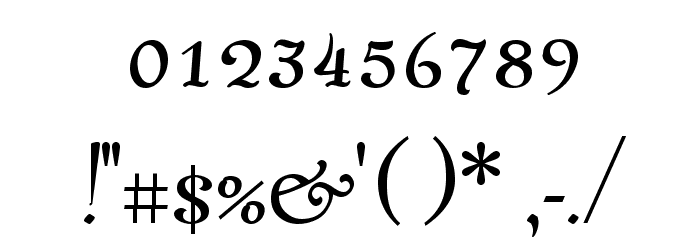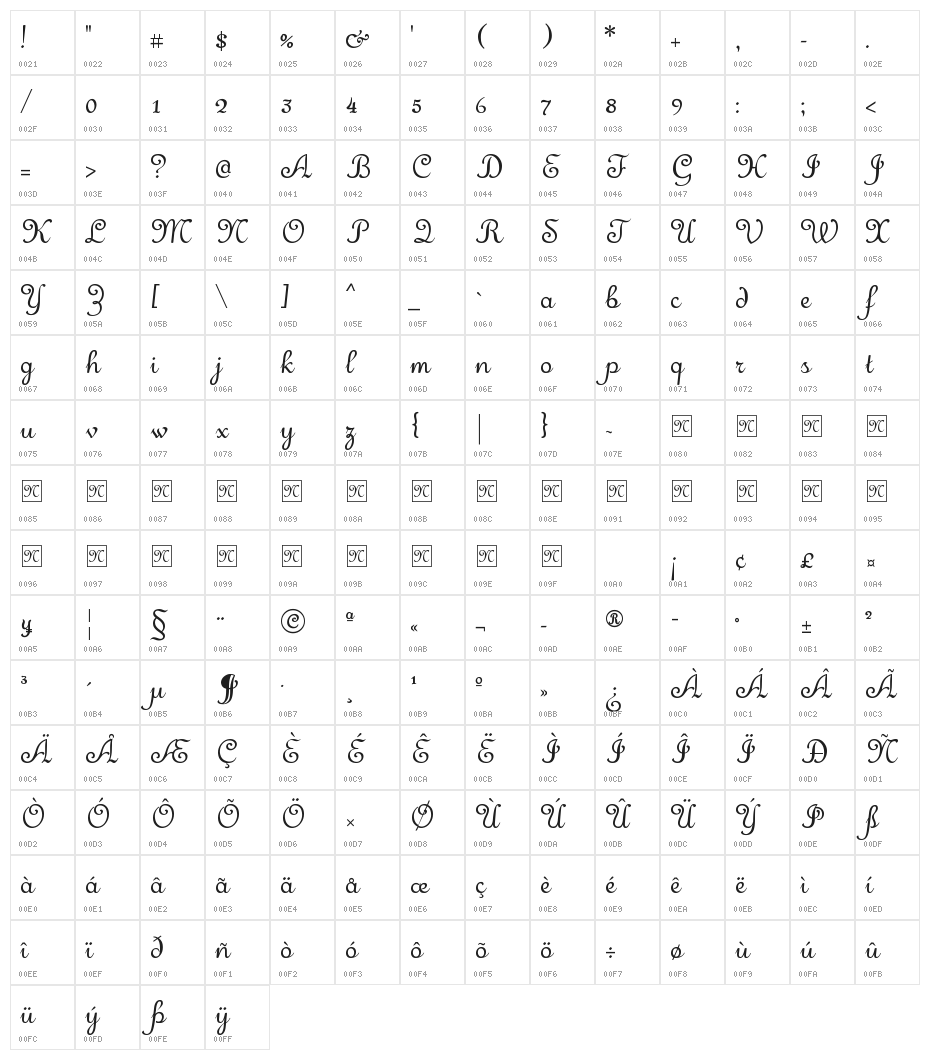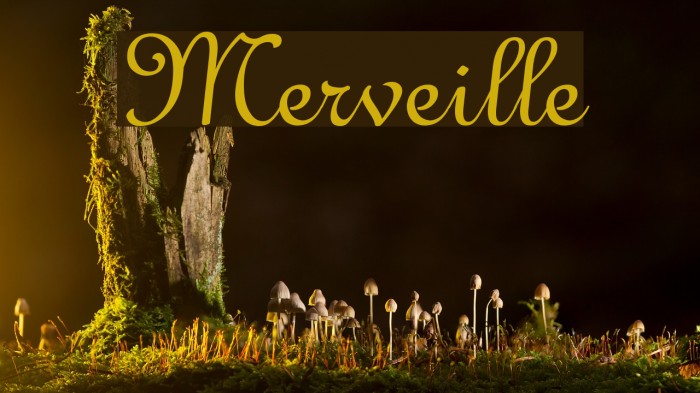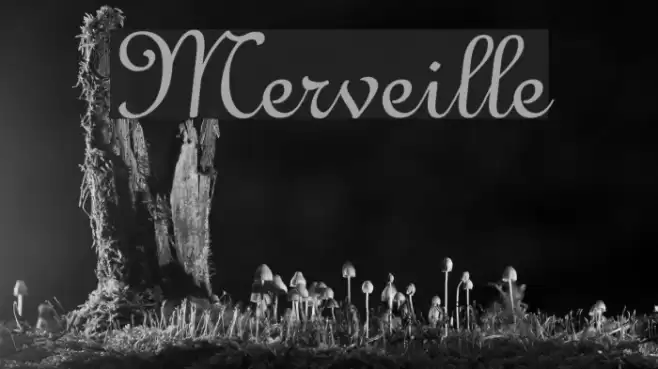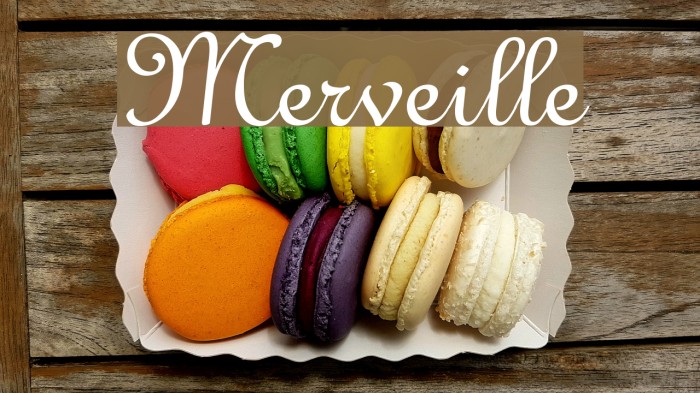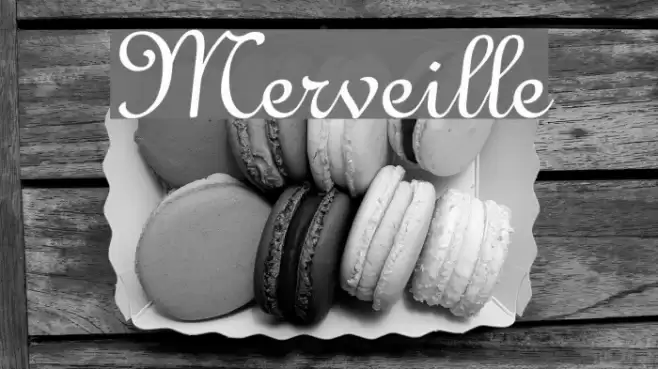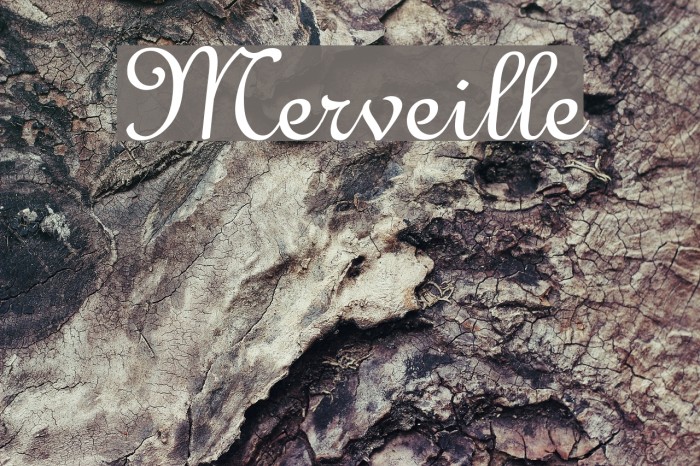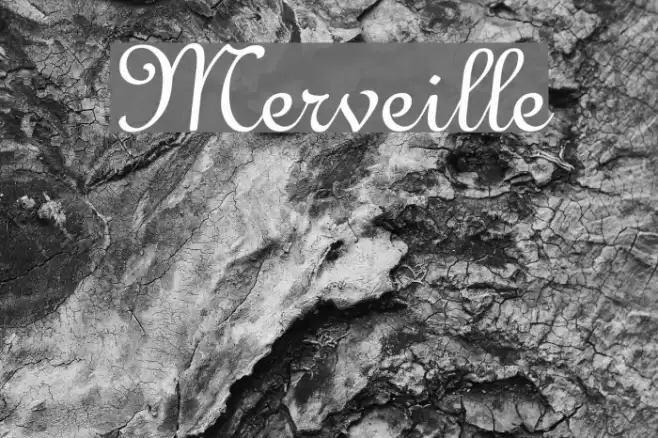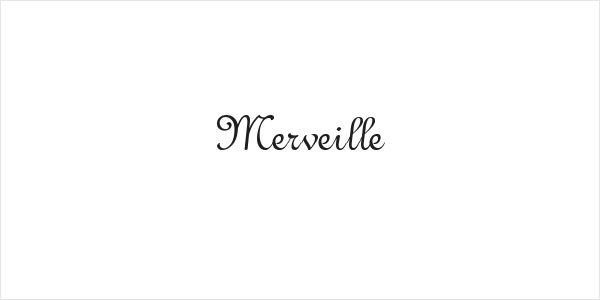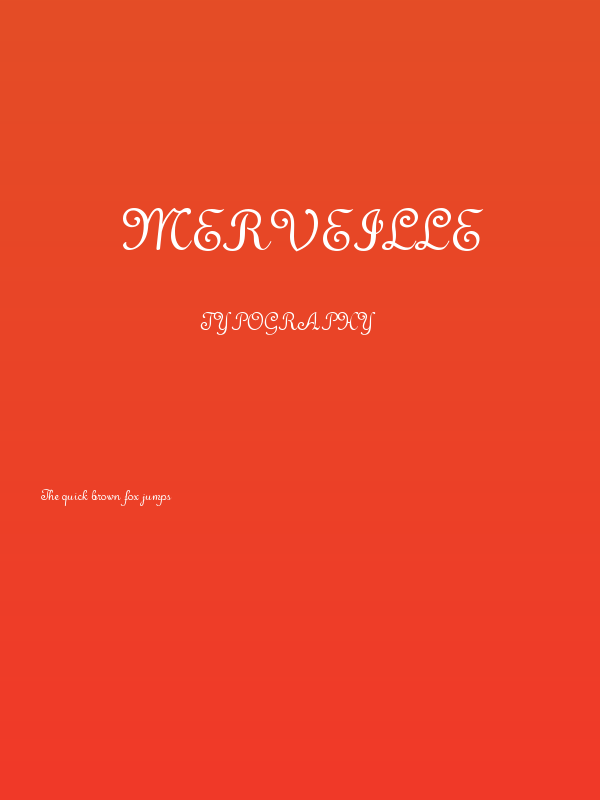
Merveille Font
Merveille Description
This elegant script font features a flowing, cursive style with intricate loops and swirls, giving it a sophisticated and artistic appearance. The uppercase letters are ornate, with each character having unique embellishments that add to its decorative nature. The lowercase letters maintain a consistent, smooth flow, enhancing readability while retaining the font's artistic flair. Numbers and special characters are designed to match the overall style, ensuring a cohesive look across all text elements. This font is ideal for projects that require a touch of elegance and creativity.